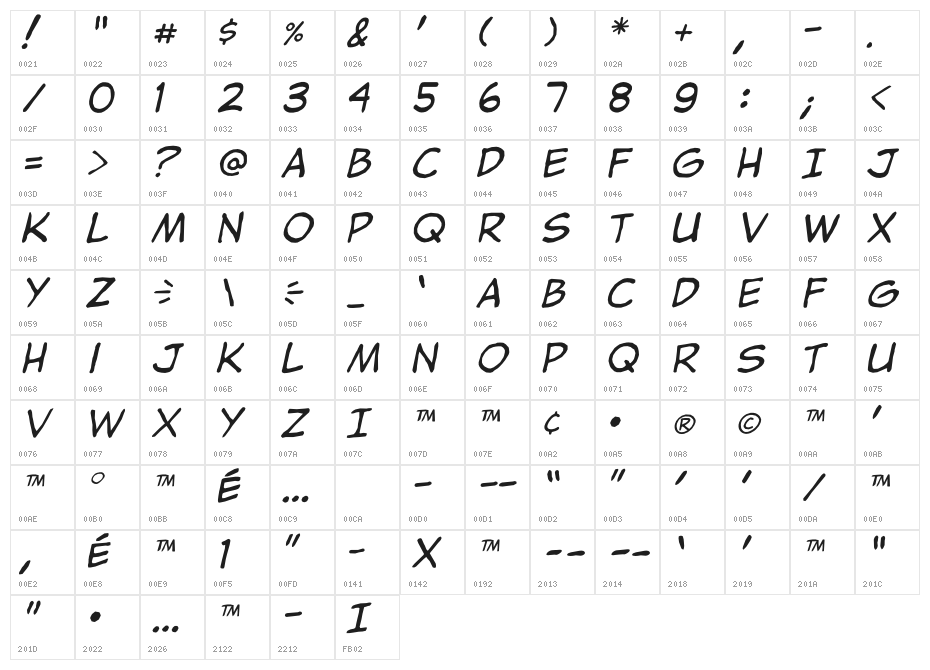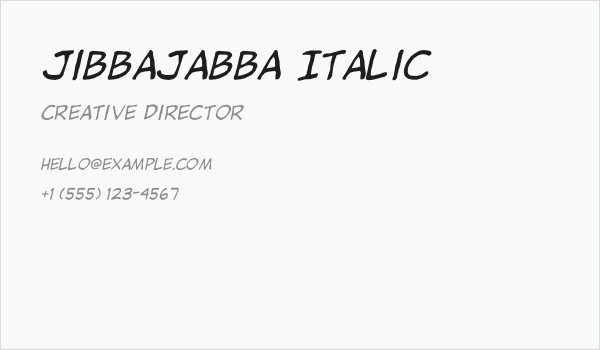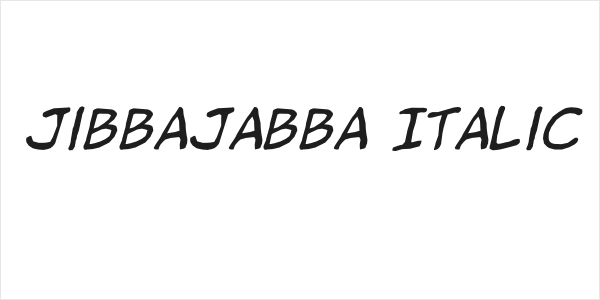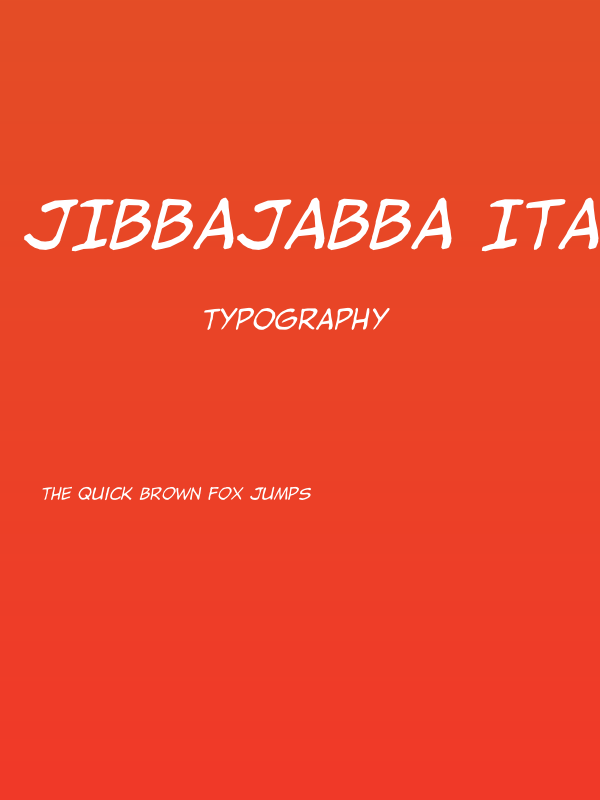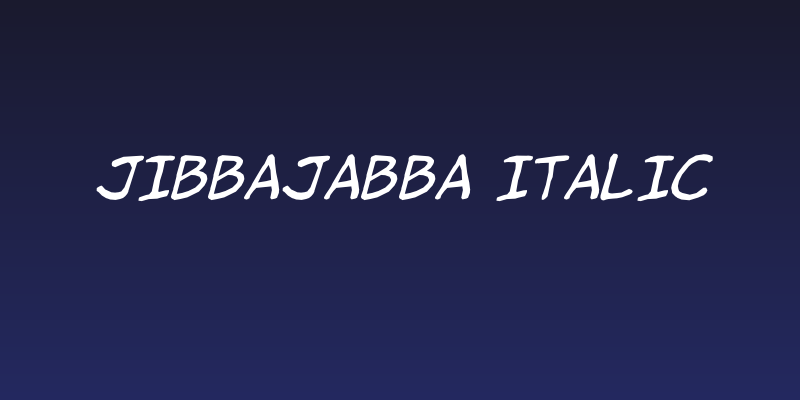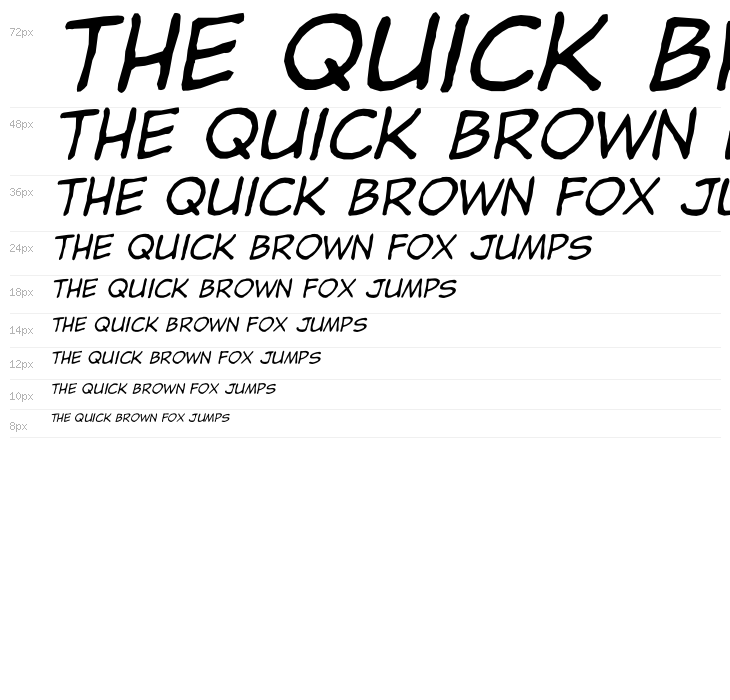
jibbajabba Italic Font
jibbajabba Italic Description
This font features a dynamic and energetic style, characterized by its italicized, handwritten appearance. The letters are slightly slanted, giving a sense of motion and fluidity. The strokes are bold and consistent, with a medium contrast between thick and thin lines. The characters are well-spaced, maintaining readability while conveying a casual and informal tone. The numerals and special characters follow the same stylistic cues, ensuring a cohesive look across all elements.
| Overall Style | Casual, Dynamic |
| Use Case | Headlines, Logos, Informal Invitations |
| Proposed Projects | Ideal for projects that require a personal touch, such as greeting cards, invitations, or playful branding materials. It can also be used in digital content that aims to engage a youthful audience. |